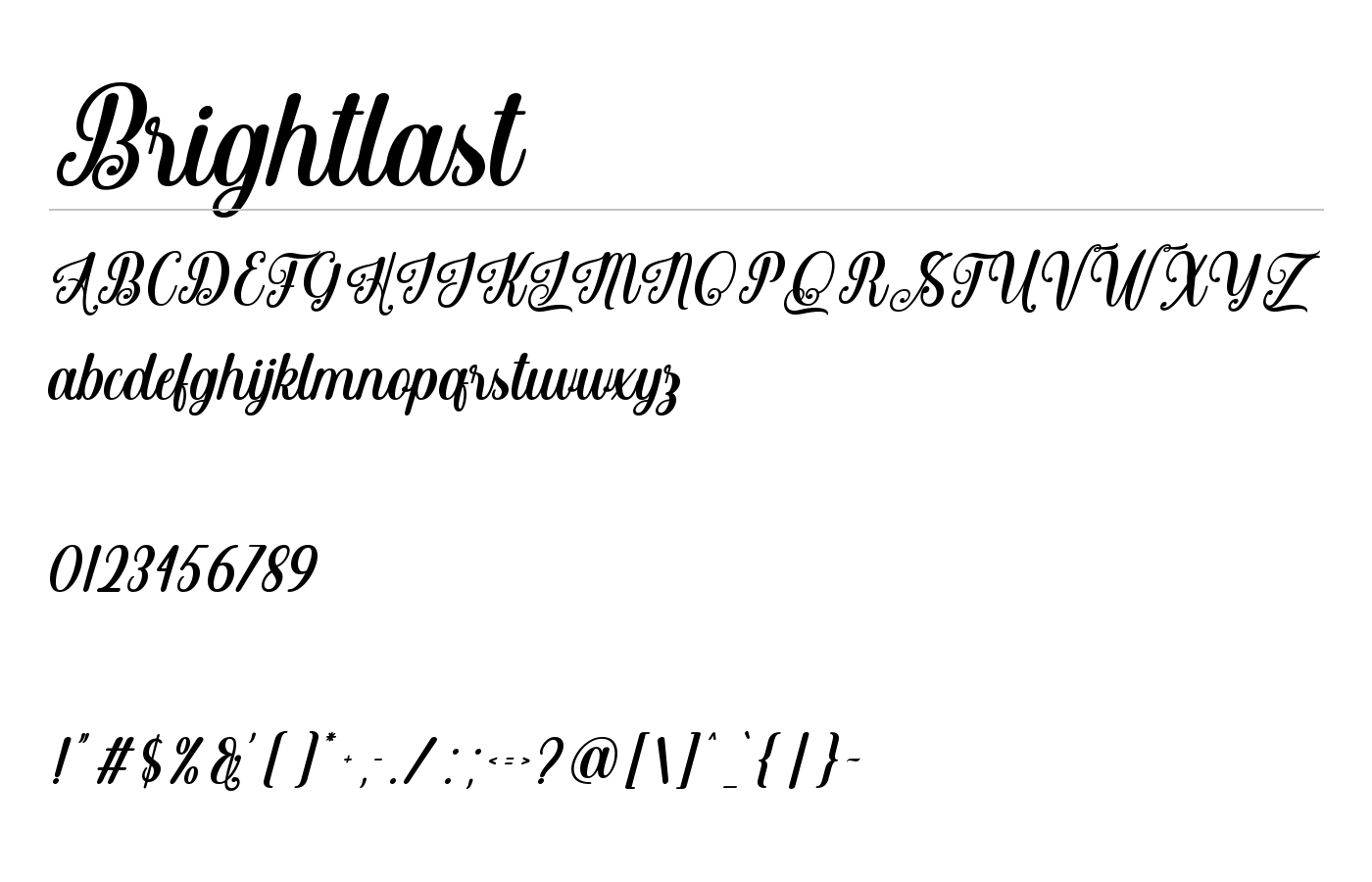
Brightlast is a charming script font with a delicate, vintage-inspired style, featuring fluid, connected strokes and elegant flourishes especially visible in its uppercase letters. Its light weight and moderate contrast give it a graceful, airy feel, making it perfect for invitations, branding, and logos that want to convey sophistication and a touch of classic romance. This font works best in decorative settings where elegance and personality are key, rather than in dense body text.
Brightlast Font
About Brightlast Font
| Font family | Brightlast Font |
| Designer | Vava Aryanto |